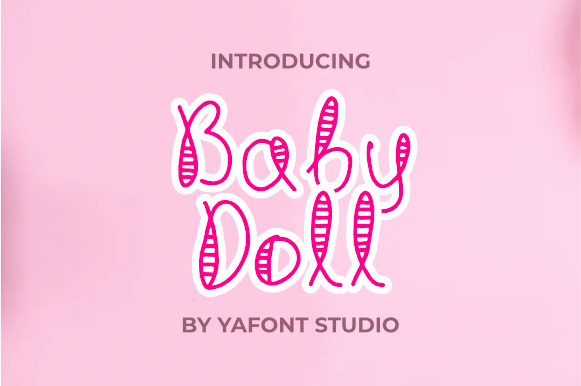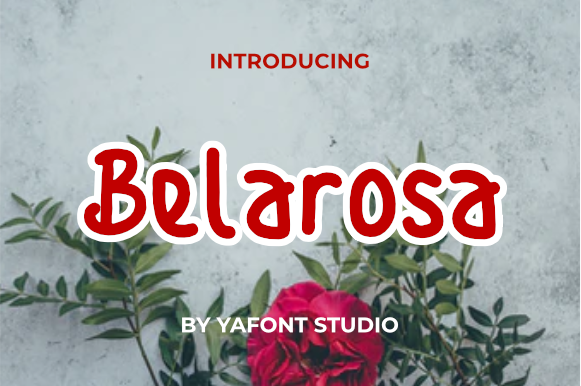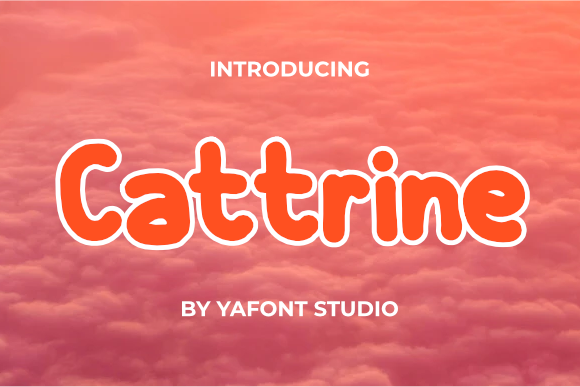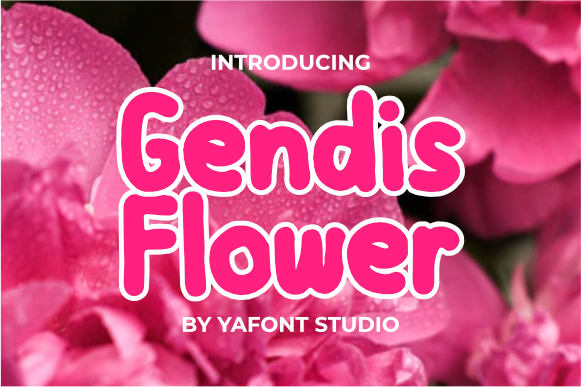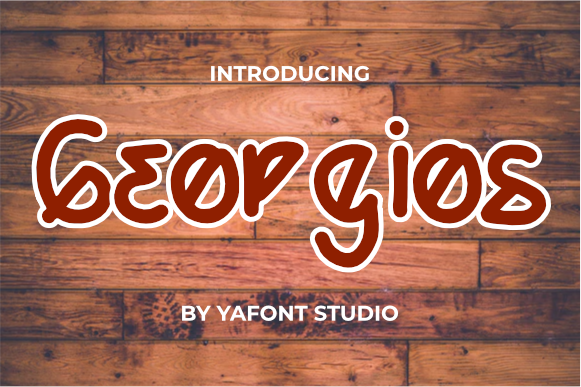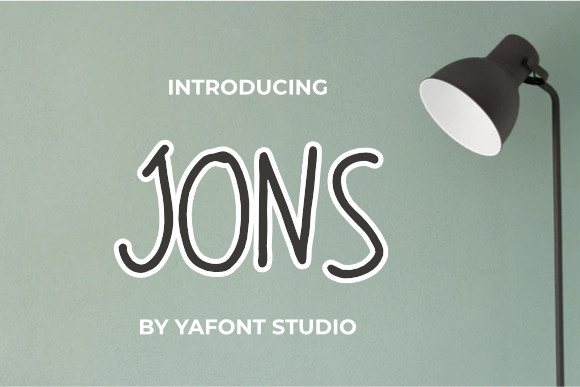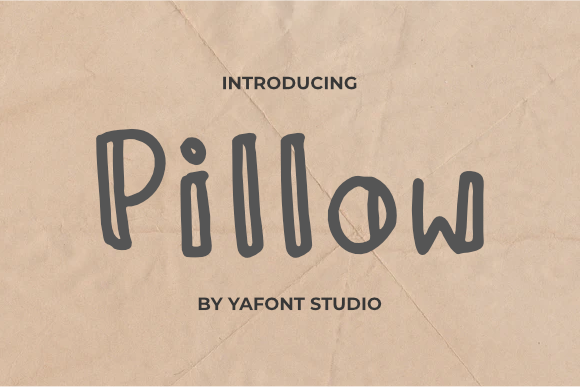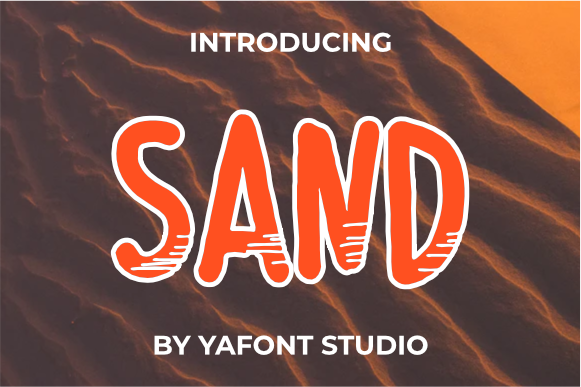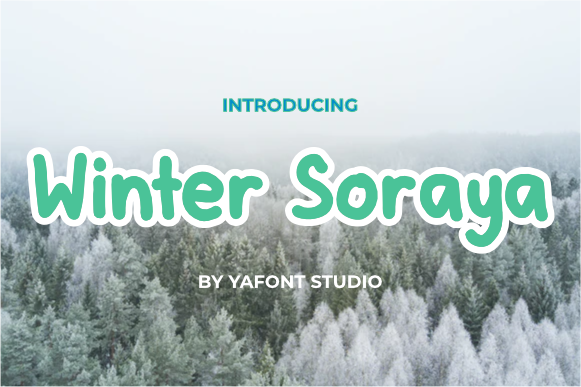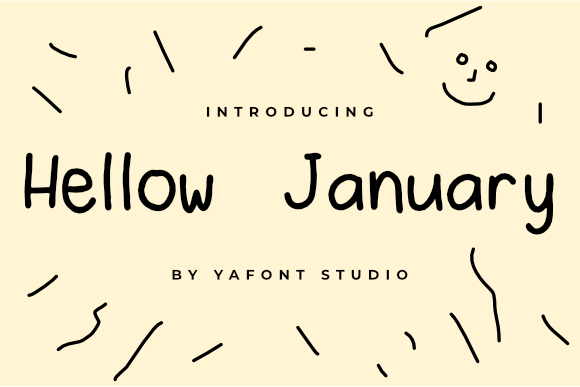
130+ Unique Fonts Bundle
TL;DR
• Festive, Minimal, Holiday, and many more themed fonts
When you have to choose the right font for your project—it isn’t just a bunch of mumbo jumbo, it’s science! Good fonts will establish a strong visual hierarchy, provide a graphic balance to the website, and set the product’s overall tone. The internet is full of unique fonts- choosing the right one for your next project can be a daunting task.
So, here’s a bundle of
130+ Ready-to-use Unique fonts
including something for every theme and occasion. Use the bright “Sunshine” font for book covers, “Emerald” for posters, “Aldebara” for invitations and holiday themed fonts like “Santa Clause” and ” Hello Christmas” for cards. The largest variety of fonts ever!
Unique fonts included in this bundle-
• Miracle of Christmas
• Funny Kids
• Hello Winter
• Everybody
• Emerald
• Photography
• Black Forest
• Christmas
• Happy New Year
• Aldebara
• Baby Cute
• Baby Doll
• Balotak
• Belarosa
• Blue Ocean
• Bougenville Flower
• Bubble Boba
• Amoxan
• Azhitromicin
• Ceftriaxon
• Hidrocloroquin
• Kindergarten
• Let’s go to School
• Methilprednisolon
• Sansullin
• Upnormal
• Cattrine
• Sunshine
• Coffee Robusta
• Cute love
• Friendly
• Gendis Flower
• Georgios
• Green Tea Milshake
• Hello Christmas
• Jons
• Krriiuk
• Lighting
• Manopo
• Mennuah
• Michy
• Monolog
• Moo Milky
• Mouw
• My Princess
• Naturally
• Pillow
• Pow Kids
• Puzzle
• Qiwqiw
• Sand
• Sansan
• Santa Claus
• Say Hello
• Srengngee
• Taro Flowers
• Tremor
• Welcome Santa
• Winter Soraya
Here’s a preview of these unique fonts
Set the tone for all your marketing strategies and project the mood or feeling that you’re aiming to send through these unique fonts!